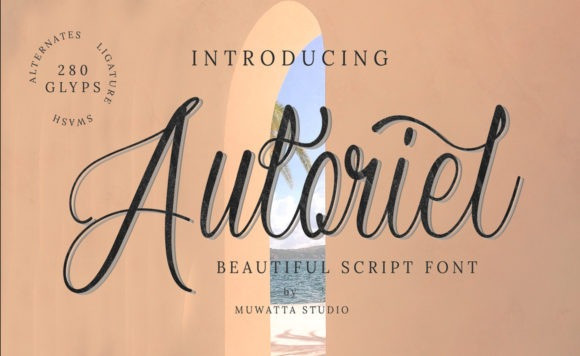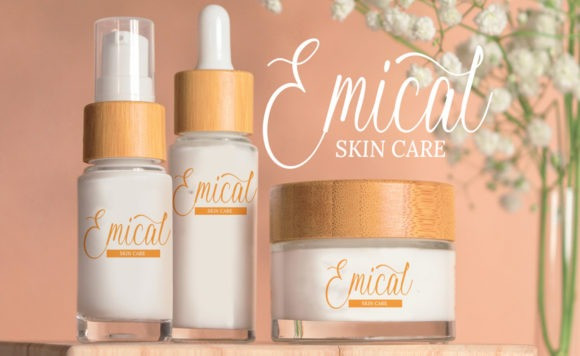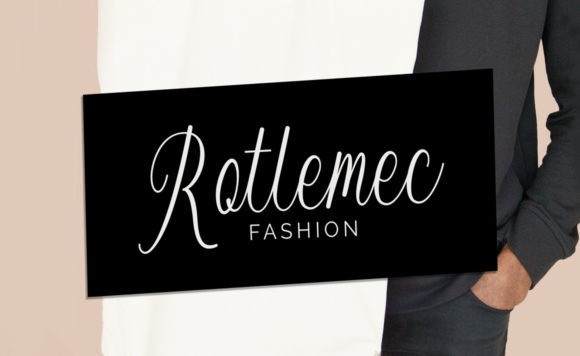
Auloriel Font
Auloriel Script is a lovely script font featuring charming, playful characters that seem to dance along the baseline. This font is PUA encoded which means you can access all of the glyphs and swashes with ease!